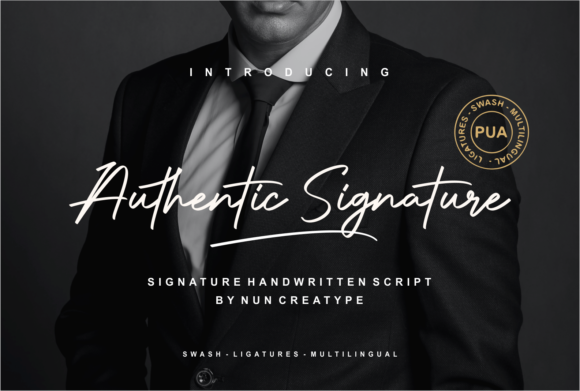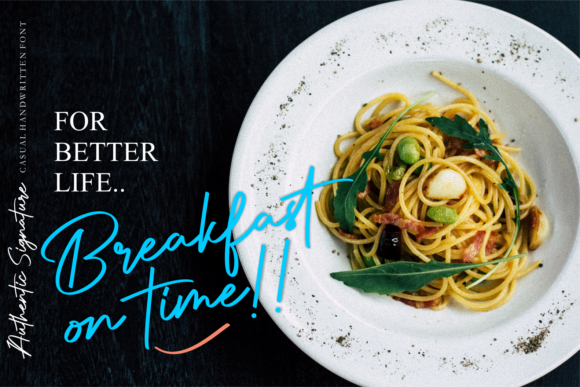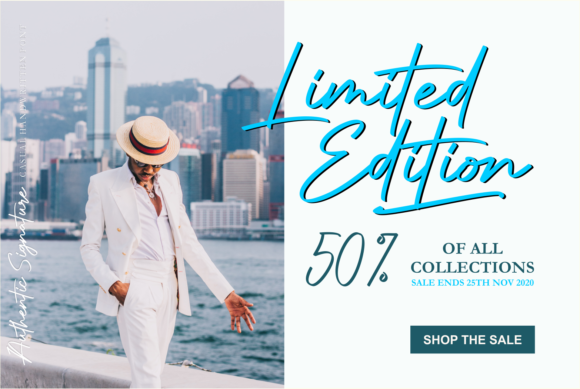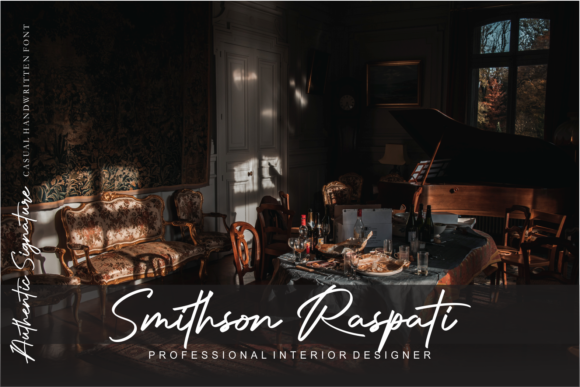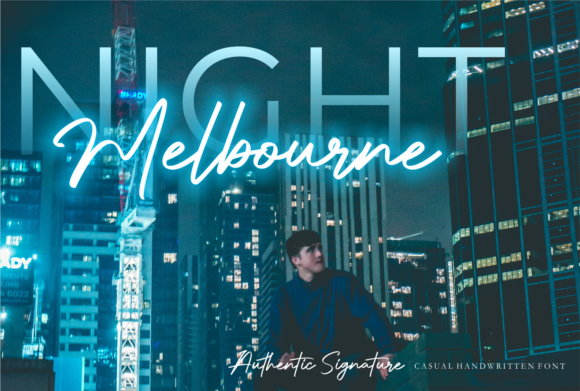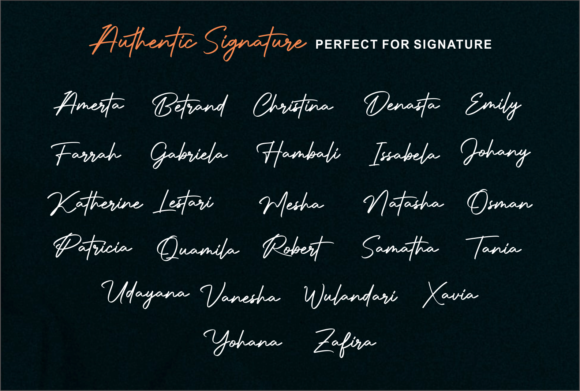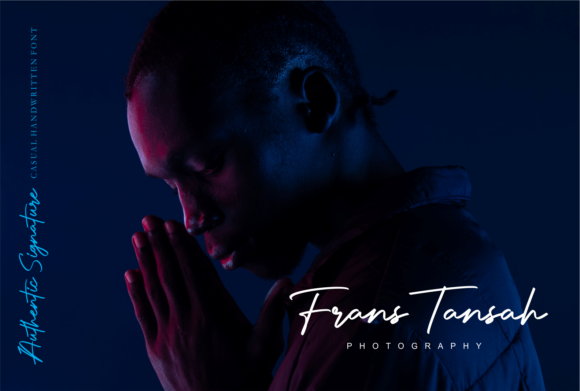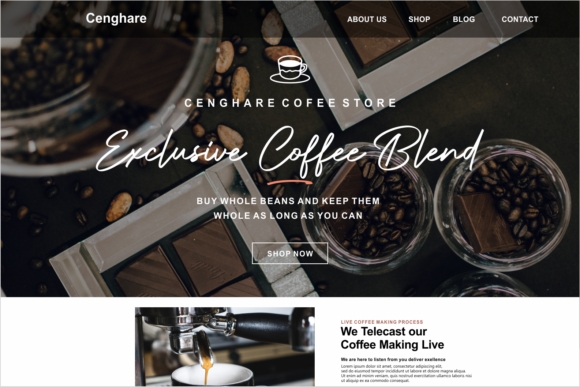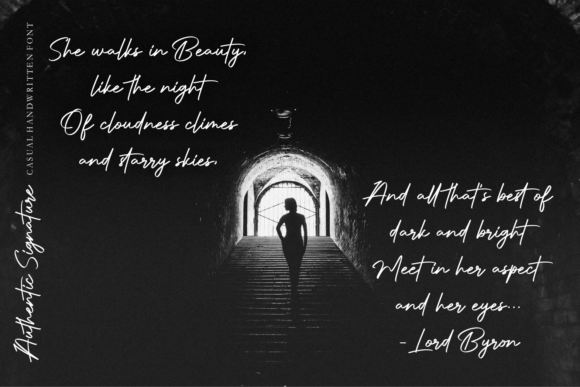
Authentic Signature Font
About Authentic Signature Font
Authentic Signature is a fashionable script with its own unique curves and an elegant inky flow.
It is perfect for branding projects, logos, wedding designs, social media posts, advertisements, product packaging, product designs, label, photography, watermark, invitation, stationery and any projects that need handwriting taste.